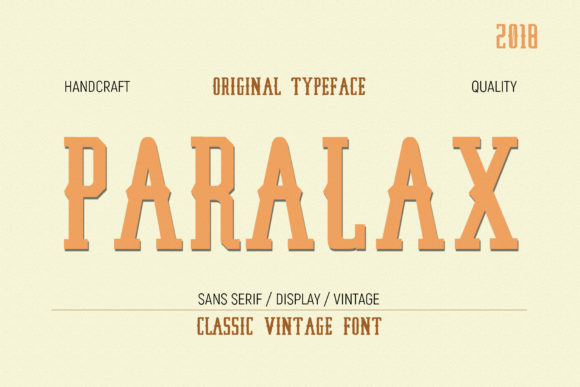
Feast your eyes upon Paralax, the visionary display font that will ignite your designs with a spark of authenticity. A masterpiece crafted by the deft hands of Gumacreative, Paralax transports you to a realm of organic beauty, where each letterform dances with an untamed spirit.
Immerse yourself in the intricate strokes, the subtle curves, and the raw energy that emanates from every glyph. Paralax is not merely a font; it is an invitation to unleash your creativity, to break free from mundane typography and soar on the wings of imagination.
With Paralax as your trusted companion, your designs will acquire a captivating allure that captivates hearts and minds. Its inherent charm lends itself effortlessly to a myriad of projects, from eye-catching logos and branding to enchanting invitations and social media graphics.
Indulge in the limitless possibilities that Paralax unlocks. Allow its rustic charm to infuse your creations with a touch of the extraordinary. Experience firsthand how this remarkable font transforms ordinary designs into works of art that resonate with authenticity and timeless appeal.
Unleash the power of Paralax today and embark on a creative journey that will leave an unforgettable mark. Embrace the allure of authenticity, and let your designs shine with a brilliance that captivates the world.